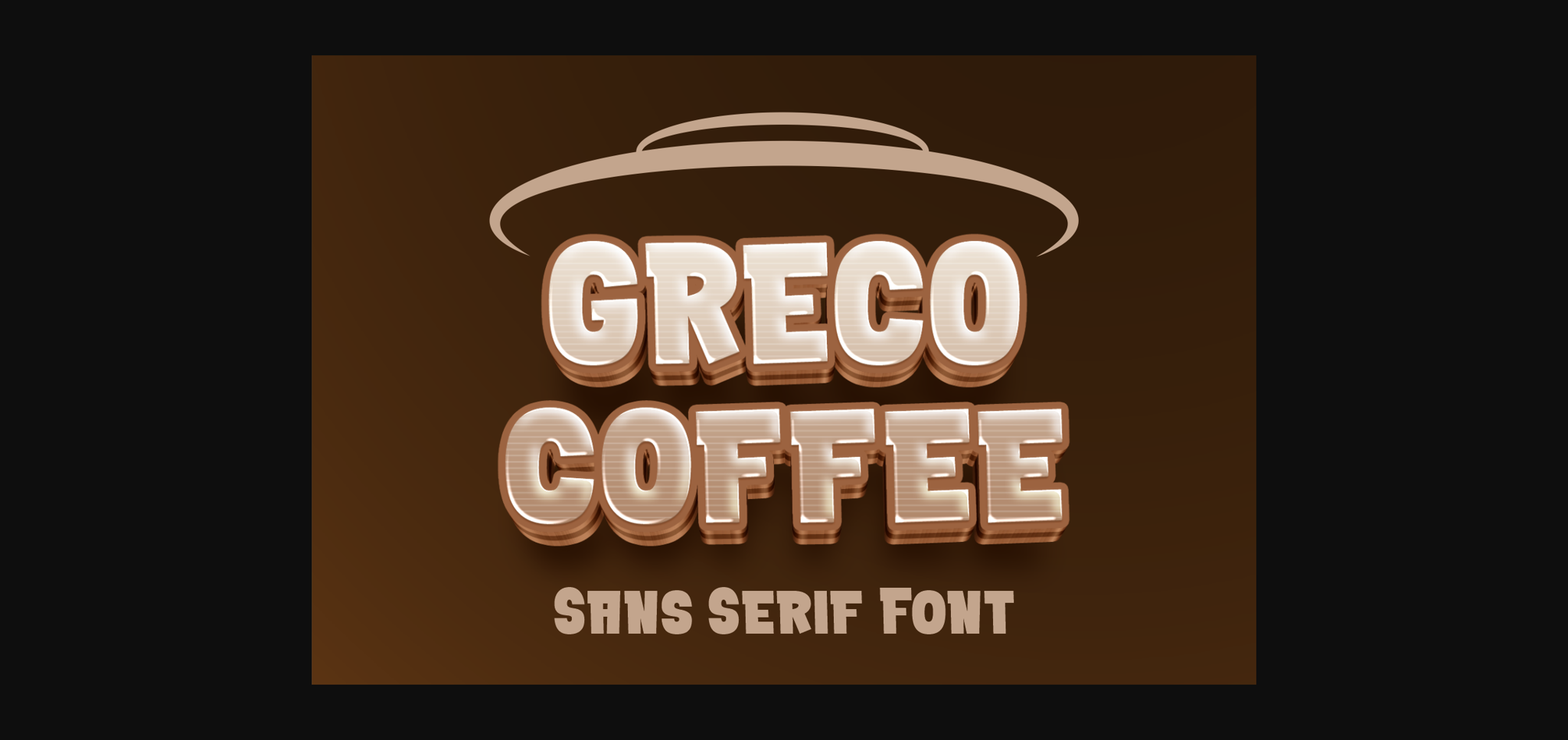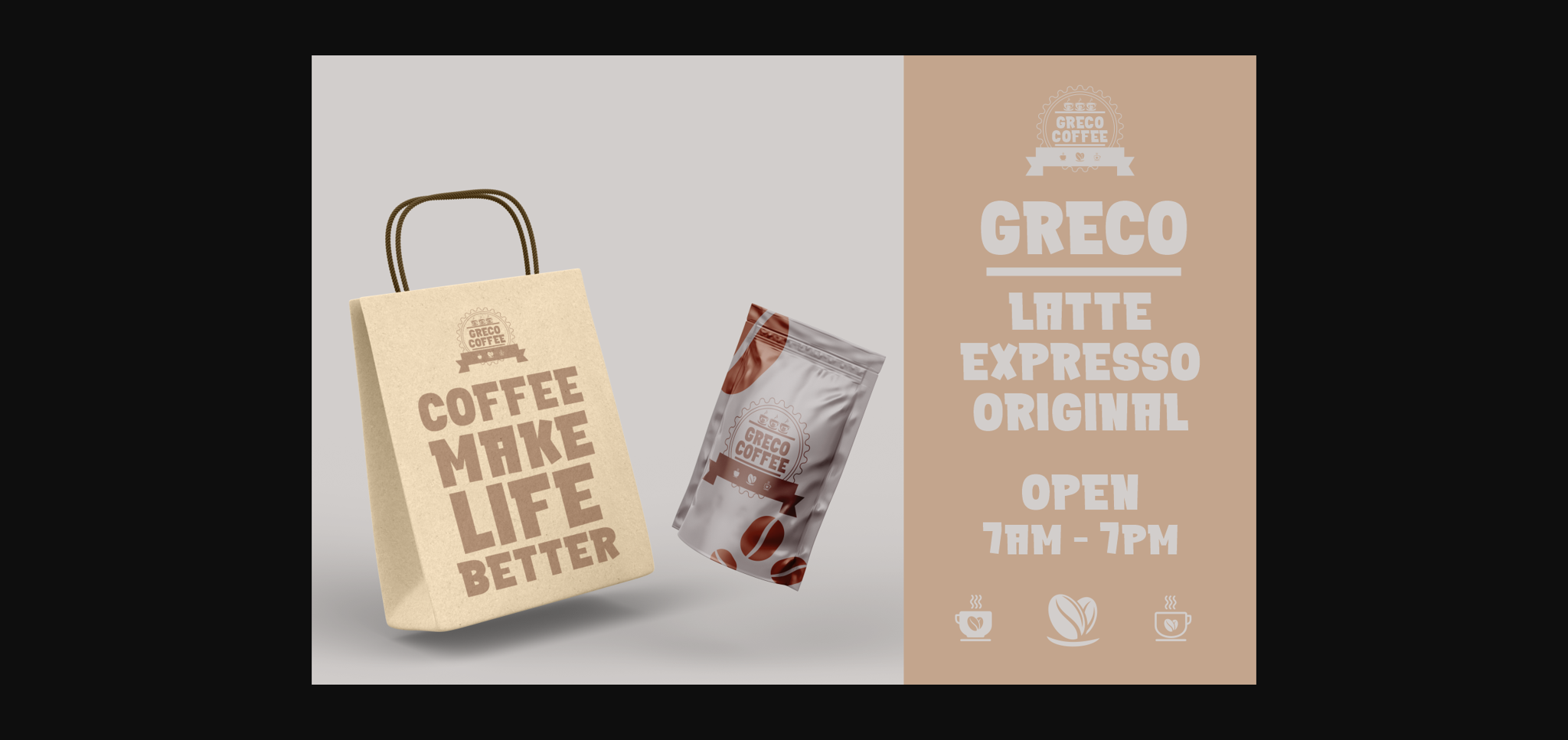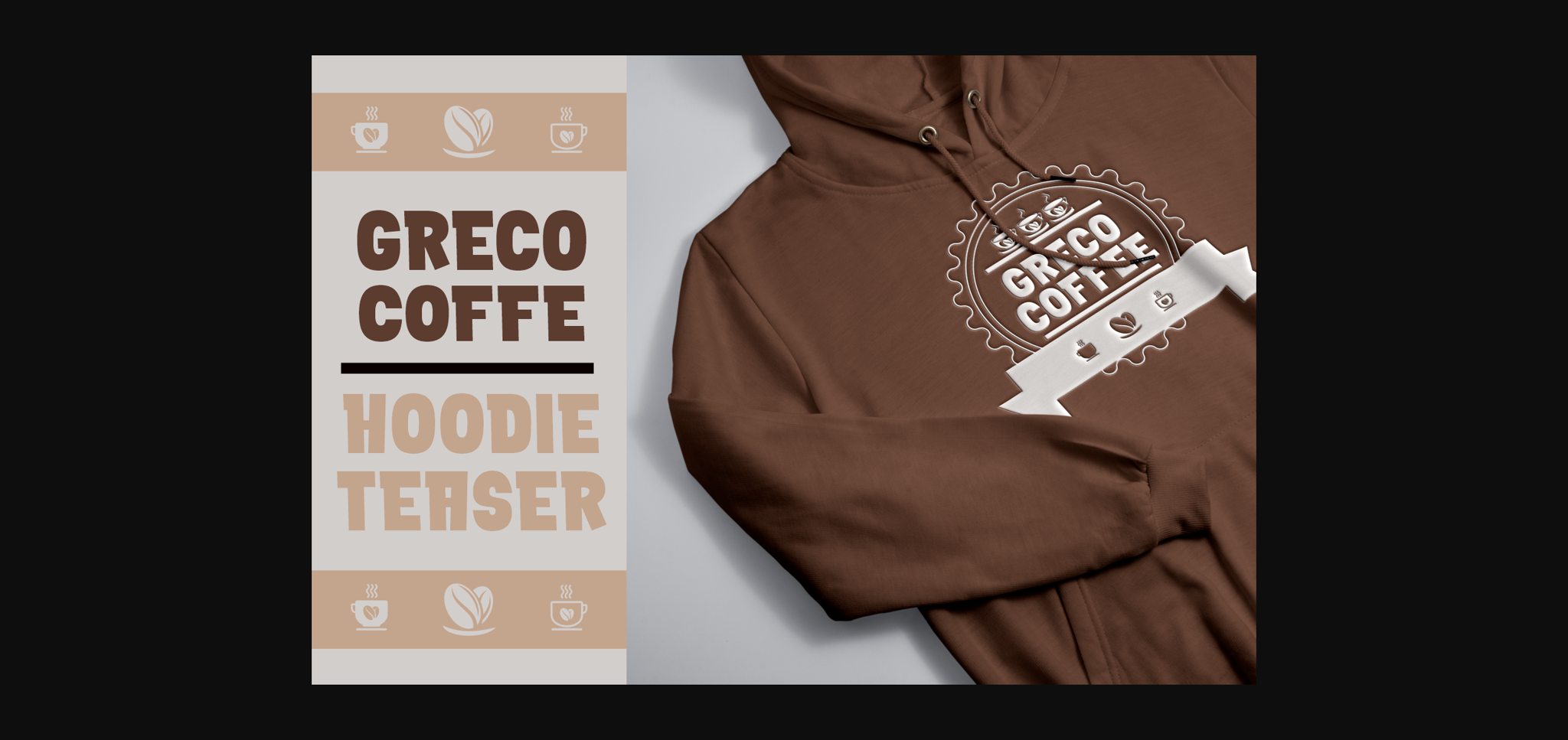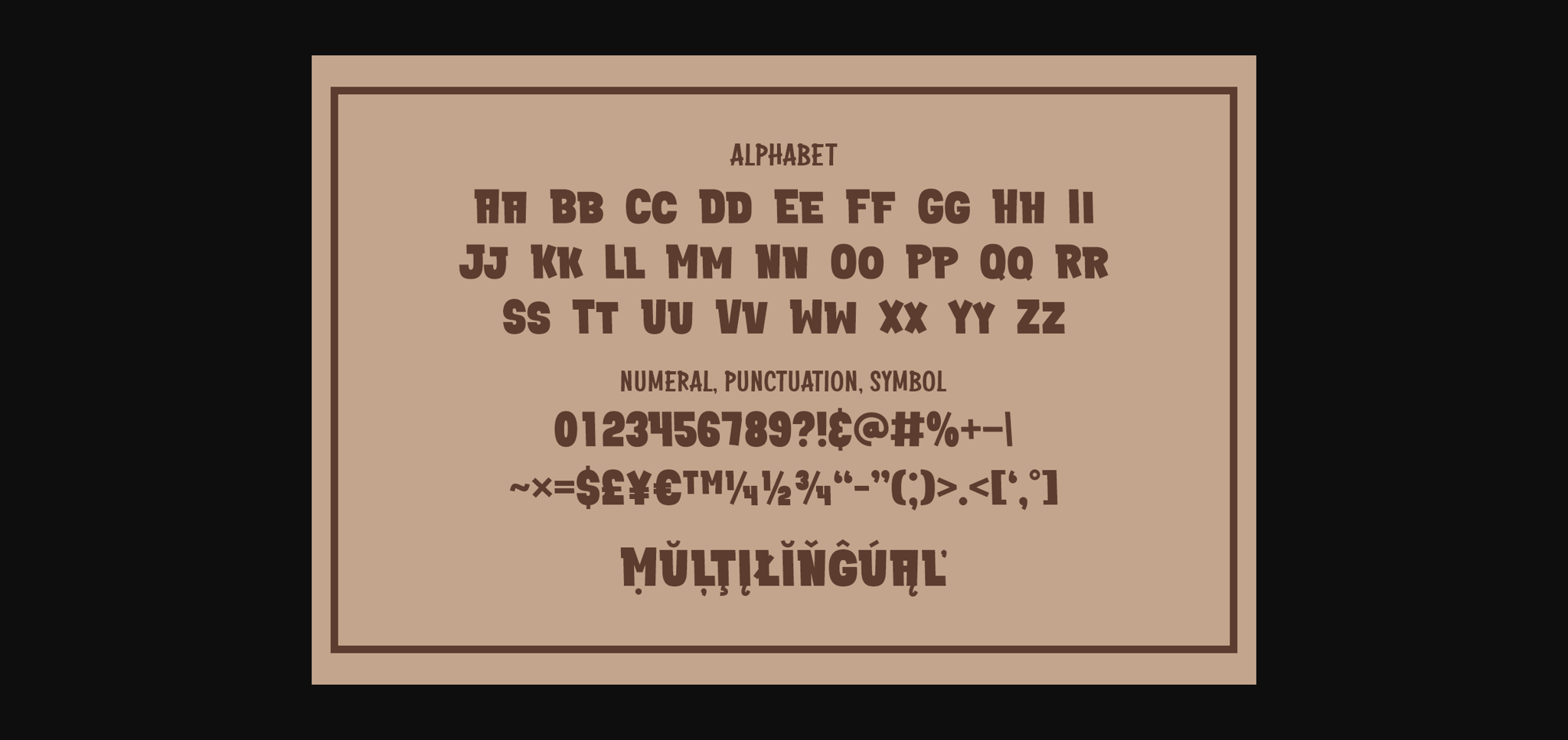
Greco Coffee Font
About Greco Coffee Font
Greco Coffee is a bold, and thick font that will help you create fun and playful designs and will look good on a variety of branding and packaging projects. This chubby font features the perfect combination of fun and creativity to instantly grab anyone’s attention.